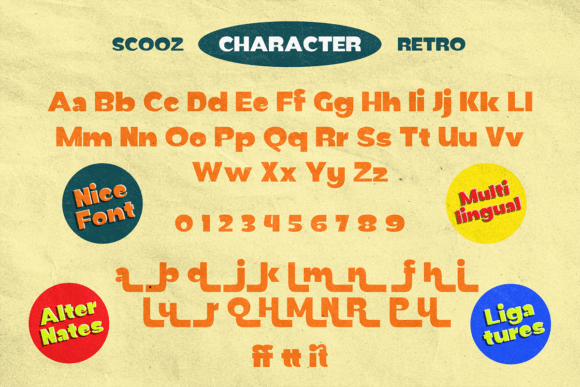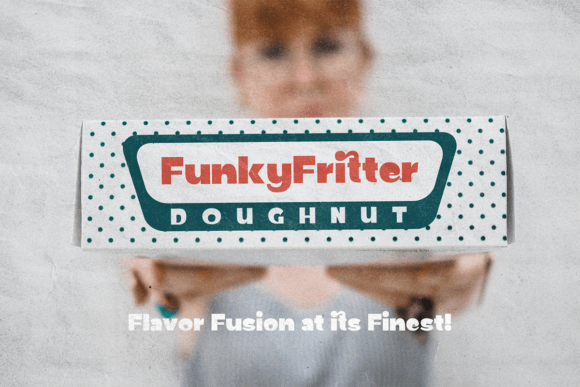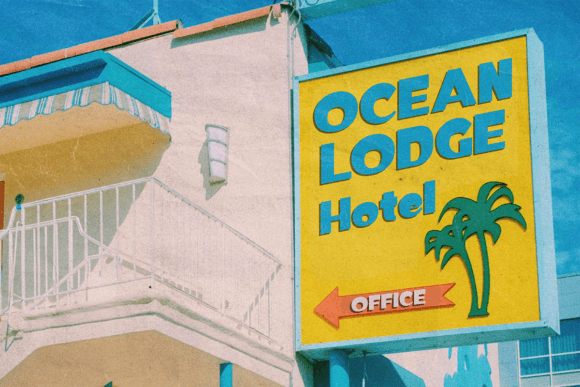
Introduction to Scooz Font
Have you ever stumbled upon an old poster or advertisement that immediately sparks a sense of nostalgia? The vibrant colors, playful typography, and charming graphics all come together to create a design that’s both eye-catching and memorable. As designers, we’re always on the lookout for ways to add a touch of personality to our projects, and that’s exactly where the Scooz Font comes in.
This high-quality font is the perfect design resource for any creative project that needs a retro flair. With its bold and playful style, Scooz Font is ideal for event posters, packaging design, and more. Its transparent background makes it easy to use with any background image or color, and its PUA encoded design ensures that all of the cute glyphs and swashes are accessible with ease. Whether you’re a seasoned designer or just starting out, the Scooz Font is a valuable addition to your design toolkit.
About the Scooz Font
Key Features of Scooz Font
- High-quality design resource ideal for creative projects, offering a unique and stylish aesthetic.
- Features a transparent background, allowing for easy customization and versatility in design applications.
- Unique characteristics include intricate details and a mix of modern and vintage elements, perfect for adding a touch of sophistication to any design project.
Honest Review: Scooz Font
I recently had the chance to work with the Scooz Font on a creative project and I’m excited to share my honest review. As a designer, I’m always on the lookout for high-quality design resources that can elevate my work.
What works well: ✨ The Scooz Font is incredibly versatile and can be used for a wide range of projects. I particularly appreciated the transparent background, which made it easy to integrate into my designs without any visual clutter. The font is also free to download, which is always a bonus.
The Scooz Font is a great addition to any design library, and I’ve already found myself reaching for it again and again. Here are a few features that make it stand out:
- High-quality design with a unique aesthetic
- Transparent background for seamless integration
One limitation I’ve noticed is that the Scooz Font may not be suitable for all types of projects. The font is quite bold and eye-catching, so it may not be the best choice for more subtle or minimalist designs.
Overall, I’m thoroughly impressed with the Scooz Font and would highly recommend it to any designer looking for a high-quality, creative resource.
Tips for Getting the Most Out of the Scooz Font
For the best results, use the Scooz Font in a design project where you want to add a creative touch. This font is perfect for a variety of use cases, including logos, branding, and marketing materials.
The Scooz Font is commonly used in a variety of design projects, including logos, branding, and marketing materials. Its high-quality design and transparent background make it a versatile design resource.